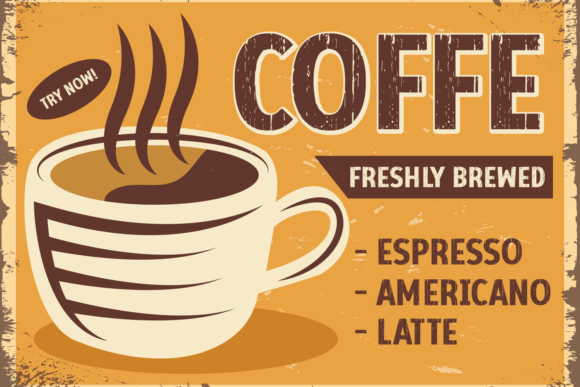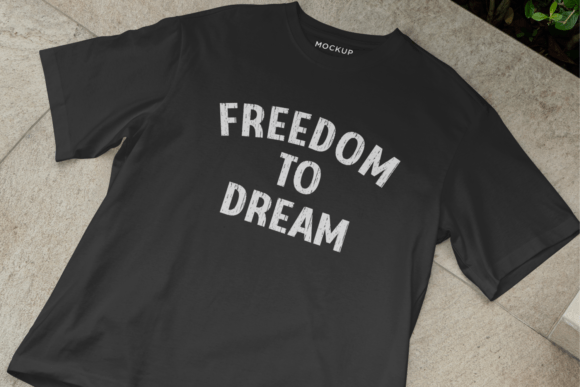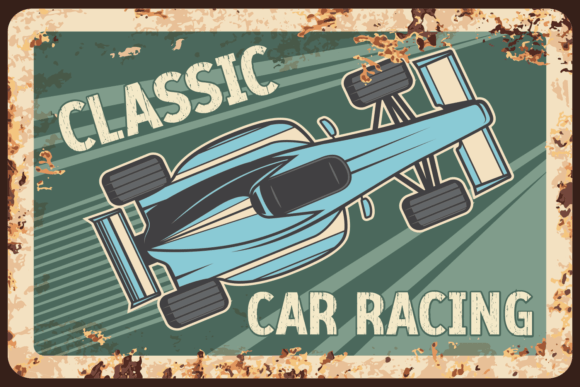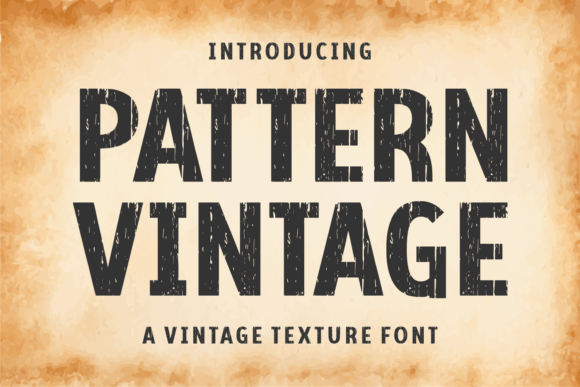
Introduction to Pattern Vintage Font
Pattern Vintage is a bold and assertive sans serif font.
Pattern Vintage Font offers exceptional quality and versatility, making it a valuable addition to your design toolkit. Whether you’re creating for personal projects or commercial use, Pattern Vintage Font delivers professional results.